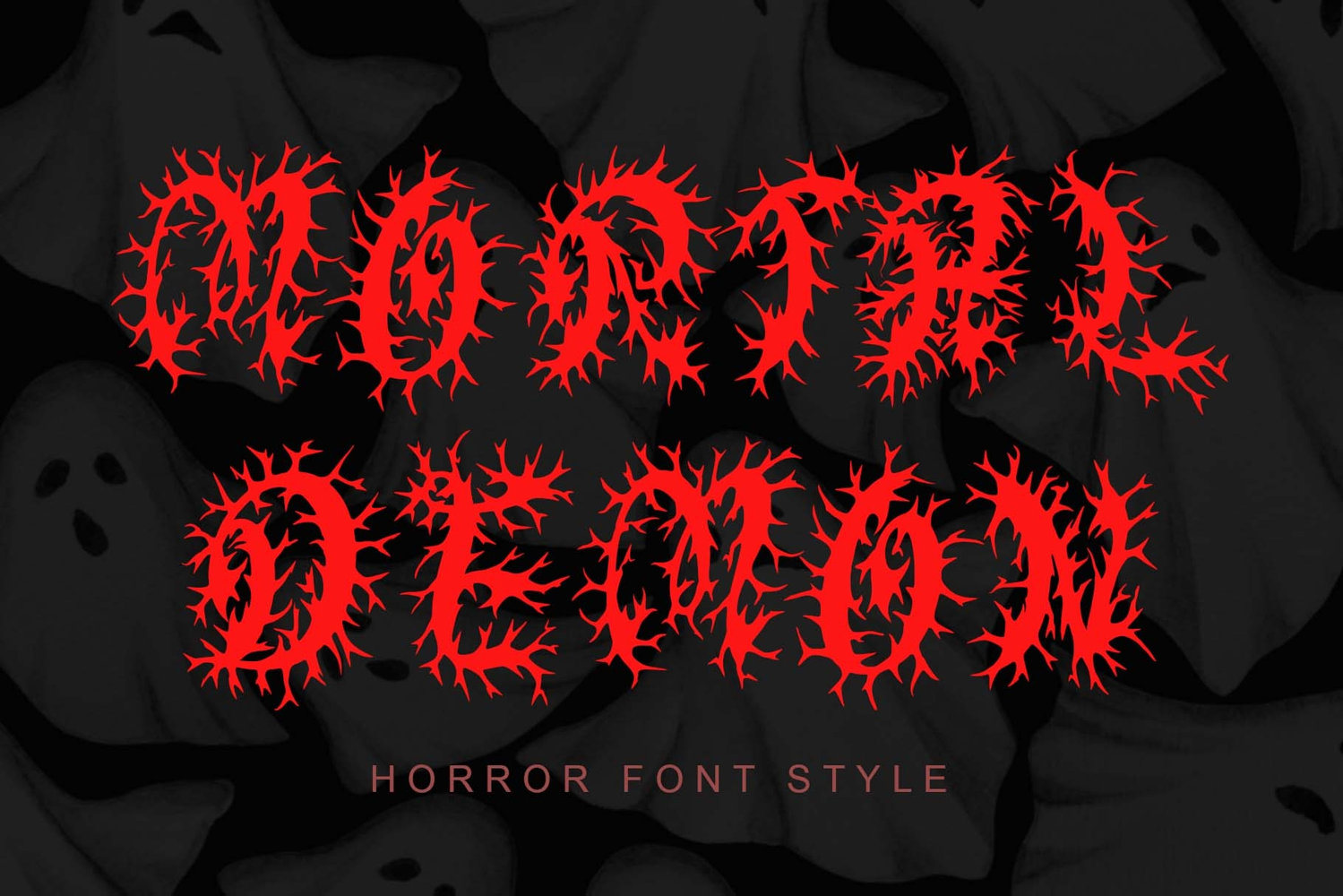
"Mortal Demon" is a horror and spooky font. It features uppercase and lowercase letters, numerals, punctuation, and multilingual support. It's perfect for Halloween, movie titles, Christmas, stickers, tattoos, back to school, teacher's day, book titles, magazines, and more.